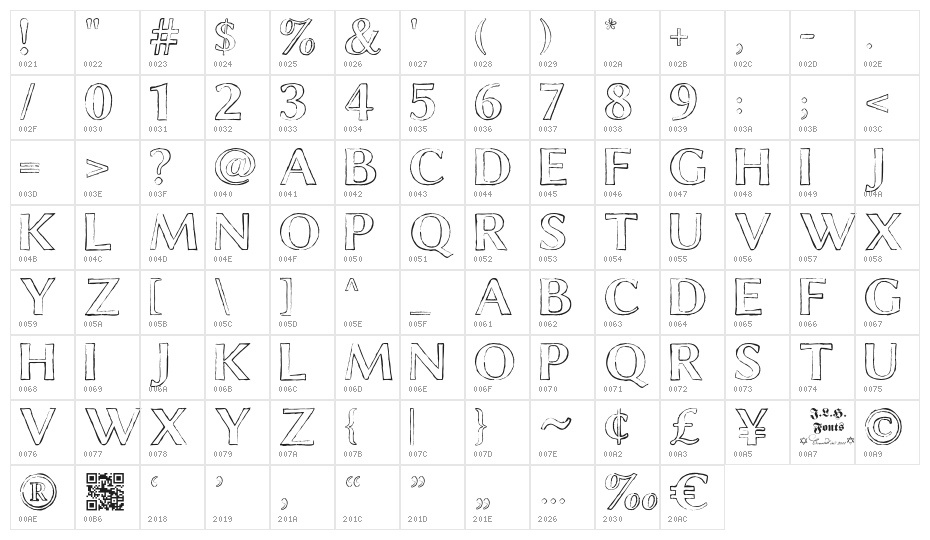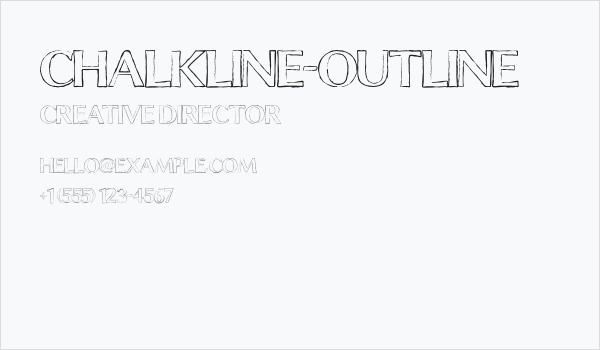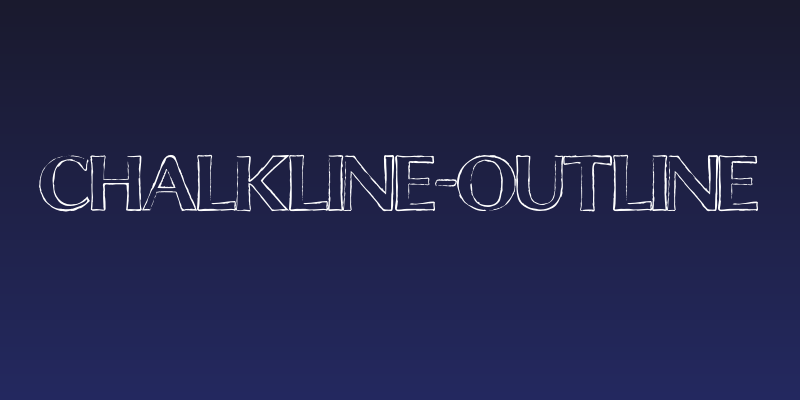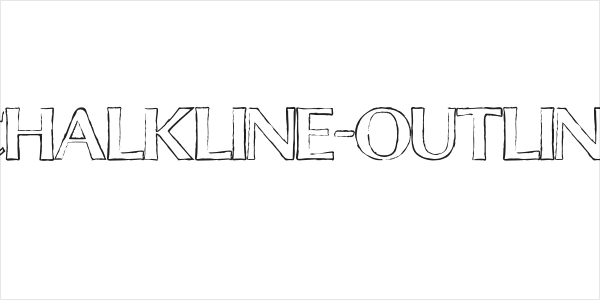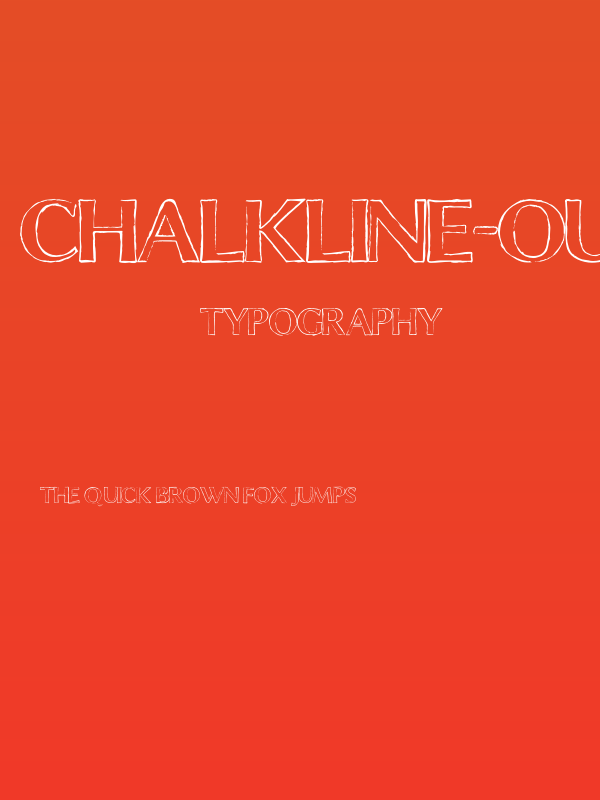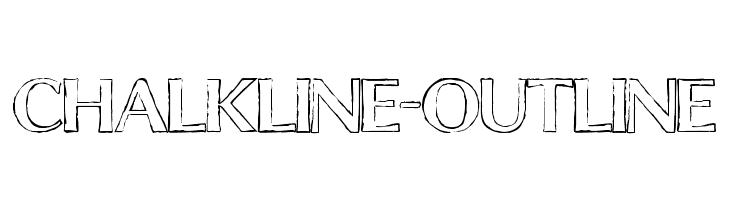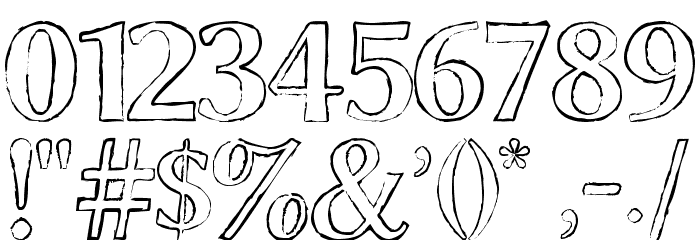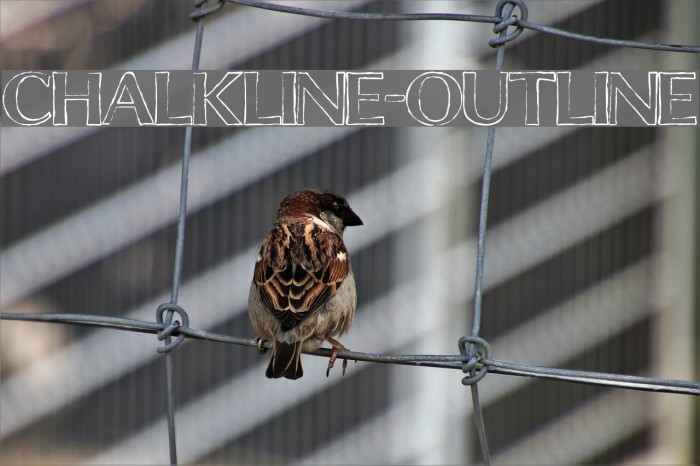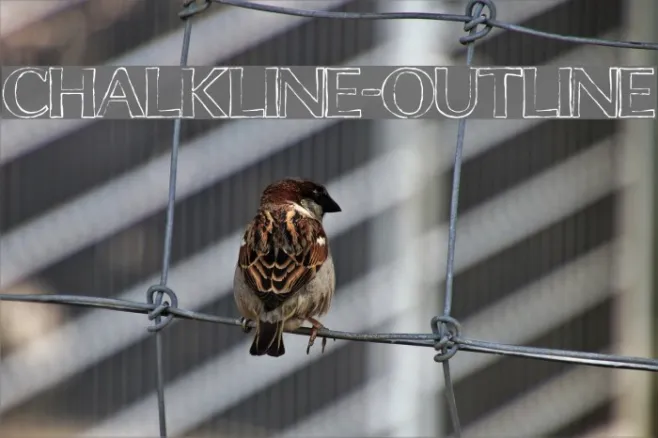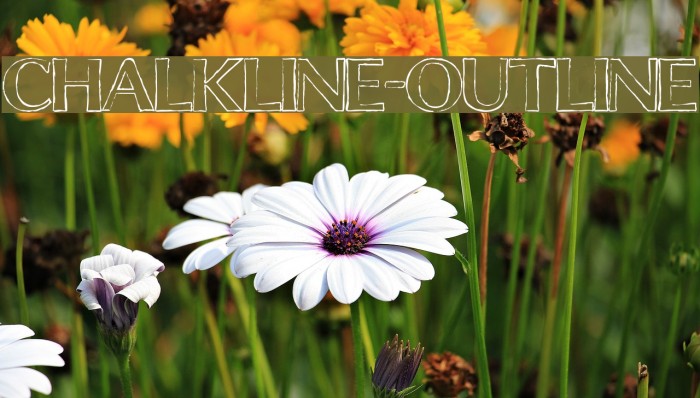
ChalkLine-Outline Font
ChalkLine-Outline Description
This font features a distinctive outline style that mimics the appearance of chalk writing on a blackboard. Each character is defined by bold, clear lines that create a hollow effect, giving it a playful yet sophisticated look. The uppercase and lowercase letters maintain a consistent style, with rounded edges and a slightly uneven texture that enhances its hand-drawn quality. Numbers and special characters follow the same design principles, ensuring uniformity across all elements. This font is ideal for projects that require a casual, artistic touch, such as educational materials, creative posters, or playful branding.
| Proposed Projects | Ideal for educational materials, creative posters, and playful branding. |